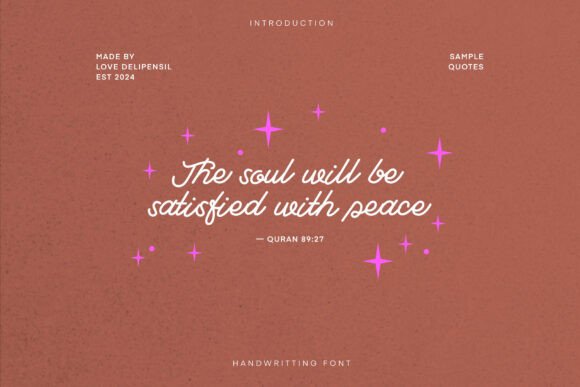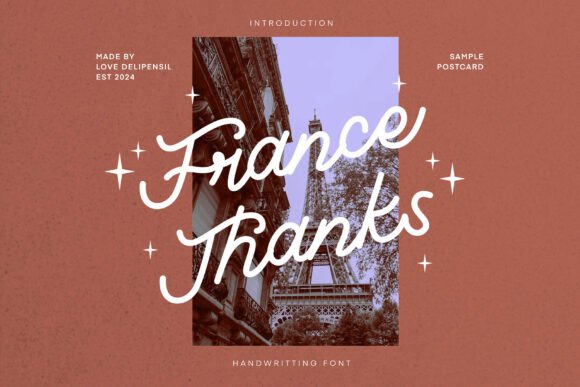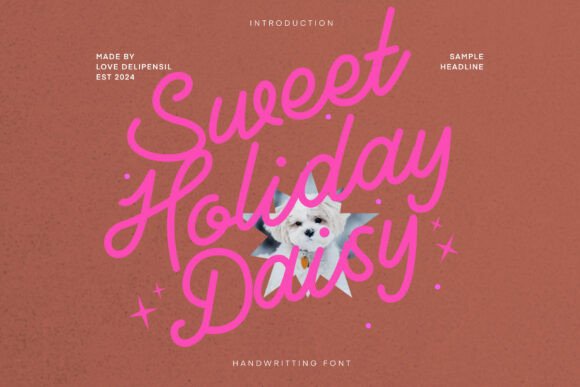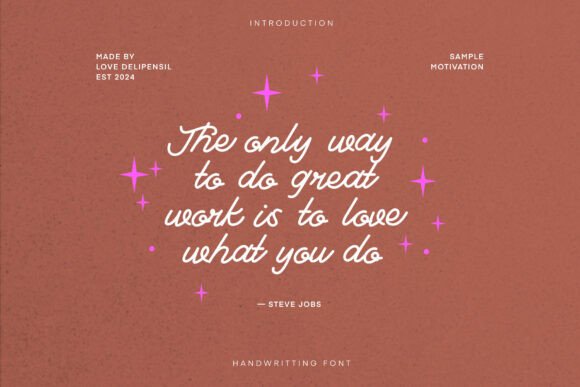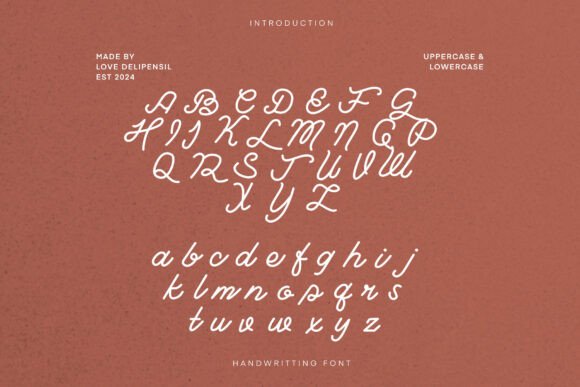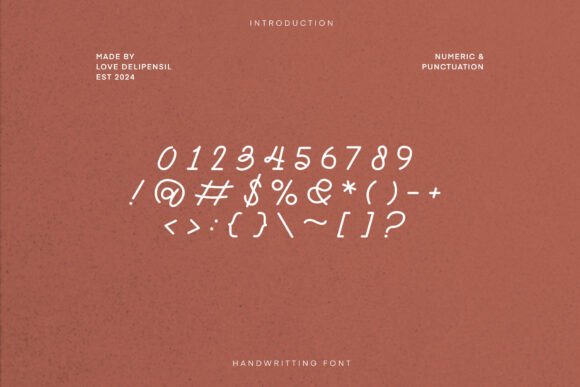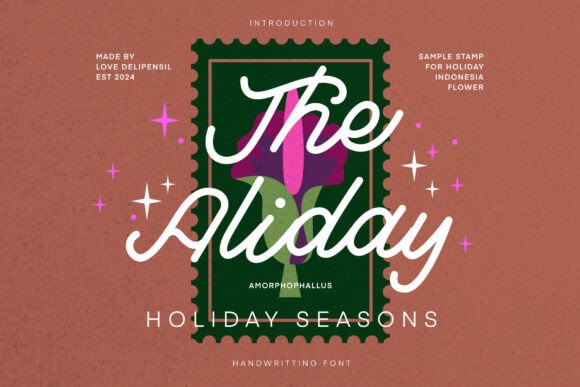
The Joy of Aliday Font: Elevating Holiday Designs with a Personal Touch
I’ll never forget the time I was working on a festive holiday project for a client, and I just couldn’t find the right font to capture the cheerful spirit I was going for. The client wanted something that felt warm, personal, and celebratory, but everything I tried seemed either too generic or too over-the-top. That’s when I stumbled upon Aliday Font, a cheerful, festive handwritten font that completely transformed my design. In this article, I’ll share my experience with Aliday, its features, and how you can make the most of it in your own projects.
An Honest Review of Aliday Font
What I Love About Aliday ✨
- ✅ Playful and Festive: Aliday Font has a unique, flowing script that instantly adds a celebratory feel to any design.
- ✅ Versatile: It works beautifully for a variety of holiday-themed projects, from greeting cards to invitations and decorations.
- ✅ Easy to Read: Despite its playful nature, Aliday remains clear and readable, even at smaller sizes.
- ✅ OpenType Features: The font comes with a range of OpenType features, including glyphs and stylistic alternates, which allow for a high degree of customization.
- ⚠️ Kerning: Like many script fonts, Aliday requires some manual kerning to ensure optimal spacing between letters, especially at larger sizes.
- ⚠️ Lowercase Letters: While the uppercase letters are stunning, the lowercase letters are slightly less elaborate, which might affect the consistency of the text flow in some designs.
The Story Behind Aliday Font
Aliday Font was inspired by the joy and warmth of holiday celebrations. Its designer aimed to create a font that felt like a handwritten note from a friend – cheerful, personal, and full of life. The result is a font that instantly brings a festive spirit to any project.
| Does Aliday Font include OpenType features? | Yes, Aliday Font comes with a range of OpenType features, including stylistic alternates and glyphs, which allow for a high degree of customization. |
| Is Aliday Font easy to read? | Despite its playful nature, Aliday Font remains clear and readable, even at smaller sizes, making it versatile for various design needs. |